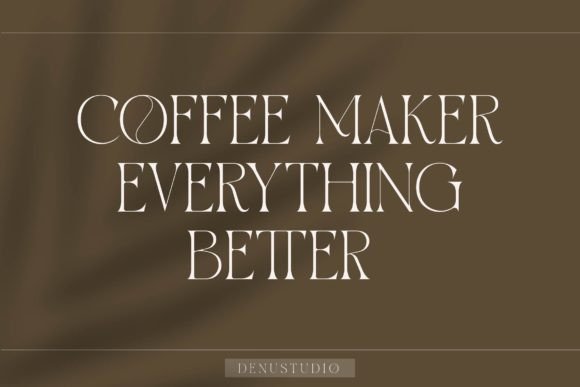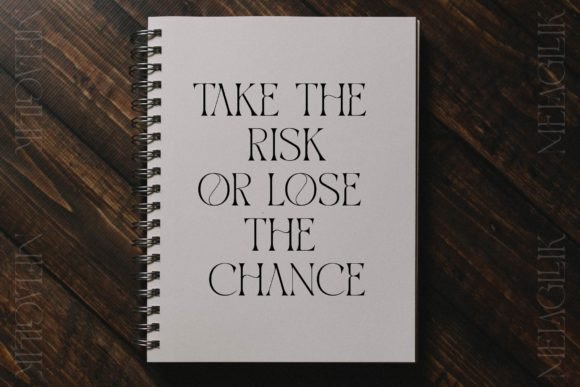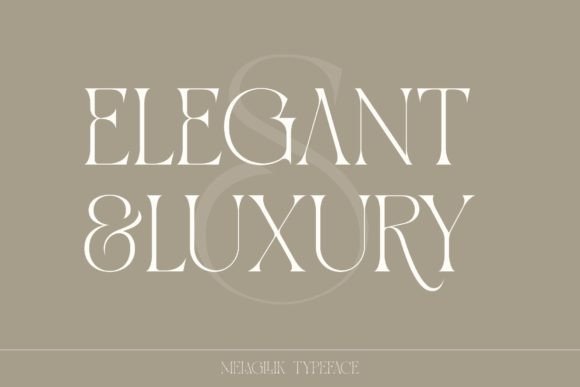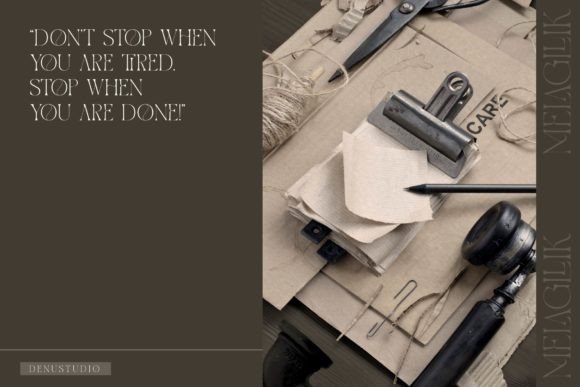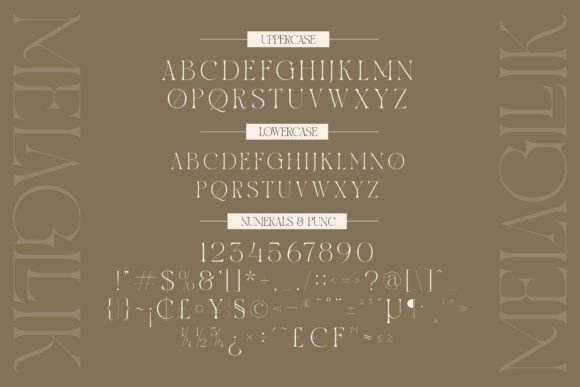
Introduction to Melagllik Font Font
Fonts play a crucial role in design, and the Melagllik Font font is a typeface that brings both character and versatility to any project. Whether you’re working on a branding project, a website, or a print design, the Melagllik Font font offers a unique style that can elevate your work.
Melagllik is a stylish, elegant, and delicate serif font.
Its luxurious appearance is perfect for branding, logos, the fashion industry, cosmetics packaging, or anything that requires a sophisticated, refined look This font is PUA encoded which means you can access all the glyphs and ligatures with ease.
Key Features of Melagllik Font Font
• ✅ High-quality typeface designed for professional use
• ✅ Includes a wide range of glyphs and characters
• ✅ Ideal for logos, branding, websites, and print
Why Choose Melagllik Font Font?
The Melagllik Font font is more than just a typeface – it’s a design tool that helps you communicate your message with style and clarity. Its unique character set and versatile design make it suitable for a wide range of applications, from elegant invitations to bold headlines.
With its carefully crafted letterforms and balanced proportions, the Melagllik Font font ensures readability and visual appeal across all mediums.
What makes Melagllik Font font special?
The Melagllik Font font stands out with its unique design, exceptional readability, and versatility across various design applications.